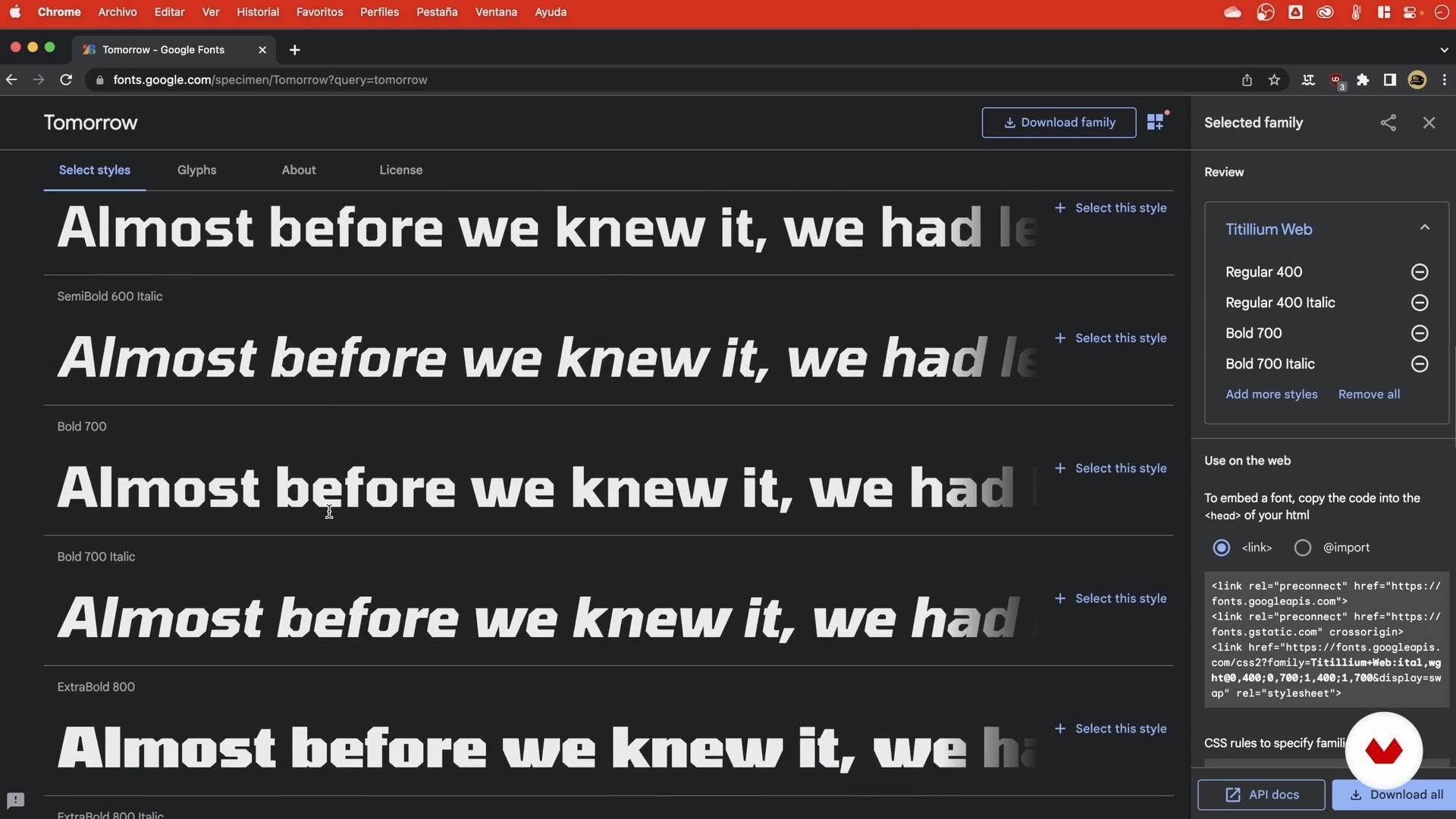
Create an eSports-style font 1
About the video: Create an eSports-style font 1
“In this lesson, you'll learn the ideal typographic style for eSports. You'll be able to convert the font you choose from a free font bank and transform it to create the perfect style for your mascot logo. We'll be using Google Fonts, so you can also check out some other paid fonts that might be useful to you.”
“In this lesson, you'll learn what type of font would be ideal for your mascot logo. You will see that some fonts have a very specific style. that will help us give more personality to our mascot For this we are going to use different pages, I will show you some, but I'm going to choose one from Google Font and then we'll edit it. So here we go. We have the word Angry Tiger Sport as the team name. It's a word I invented in my own imaginary brief. For this we are going to use different pages where we can choose our font. However, I highly recommend that you use the Google Fonts page. Google F...”